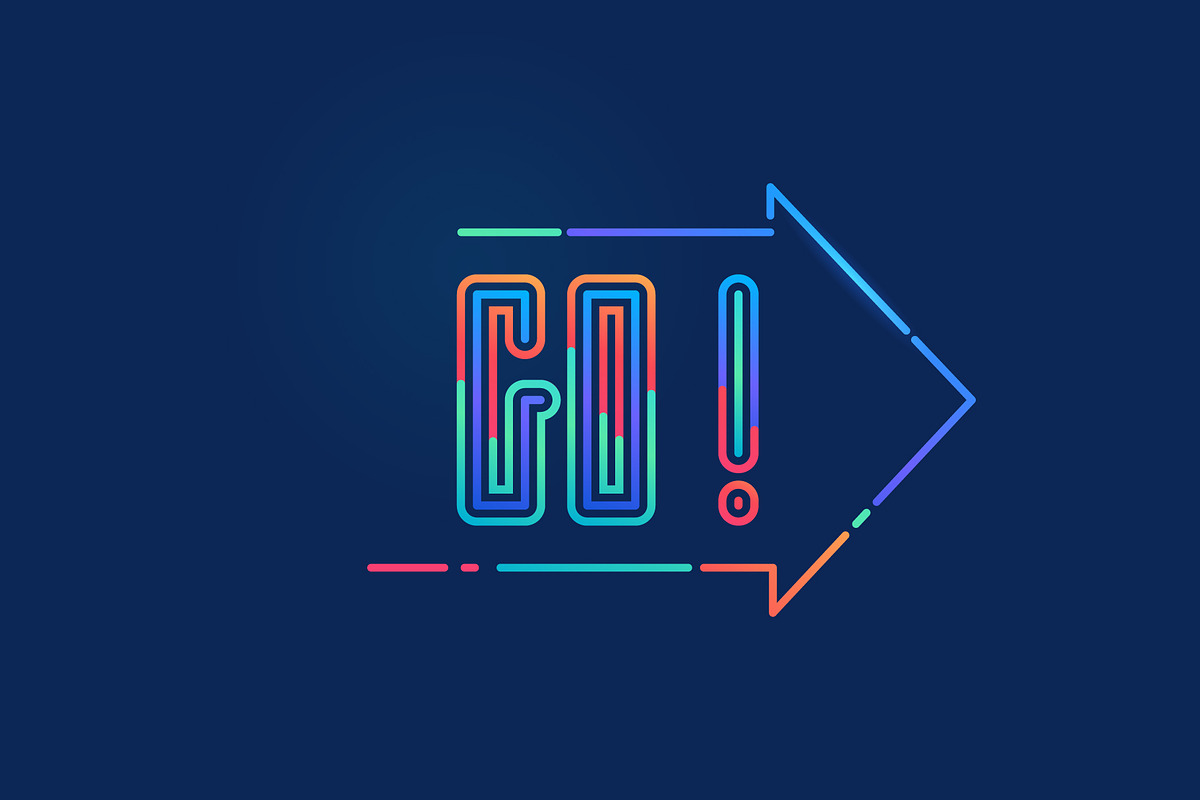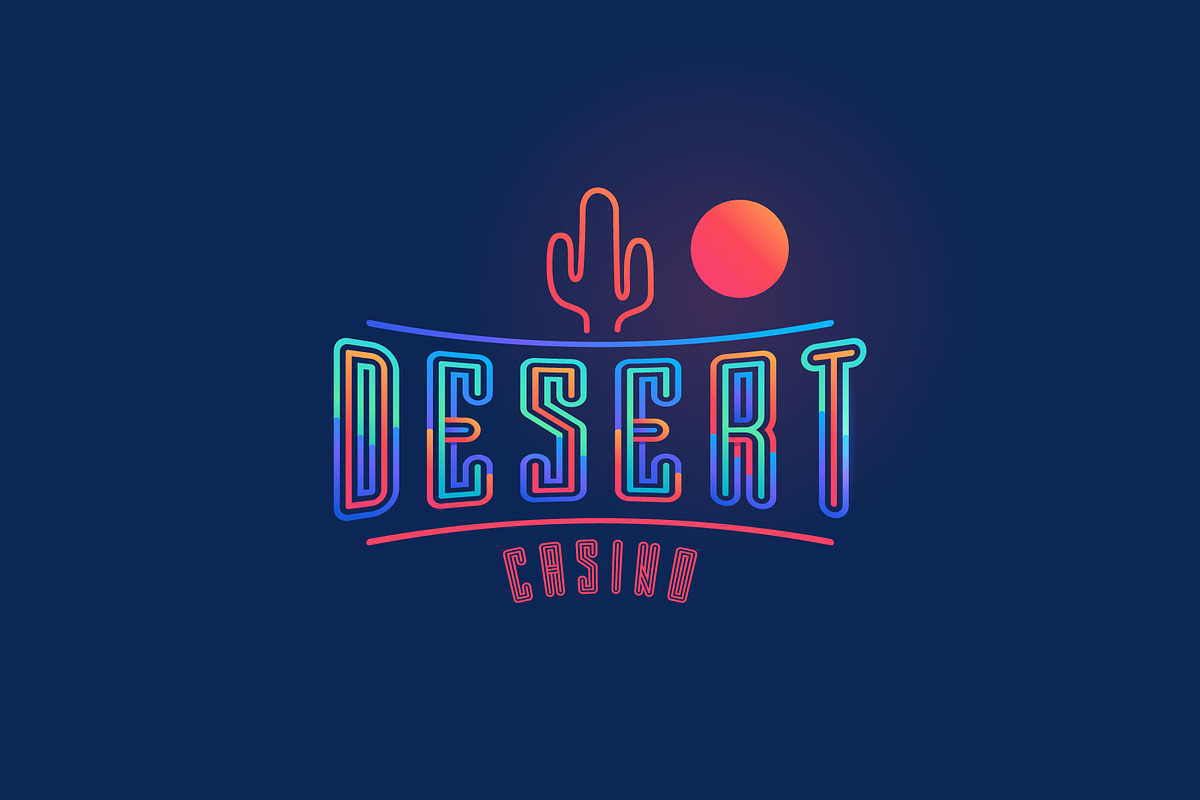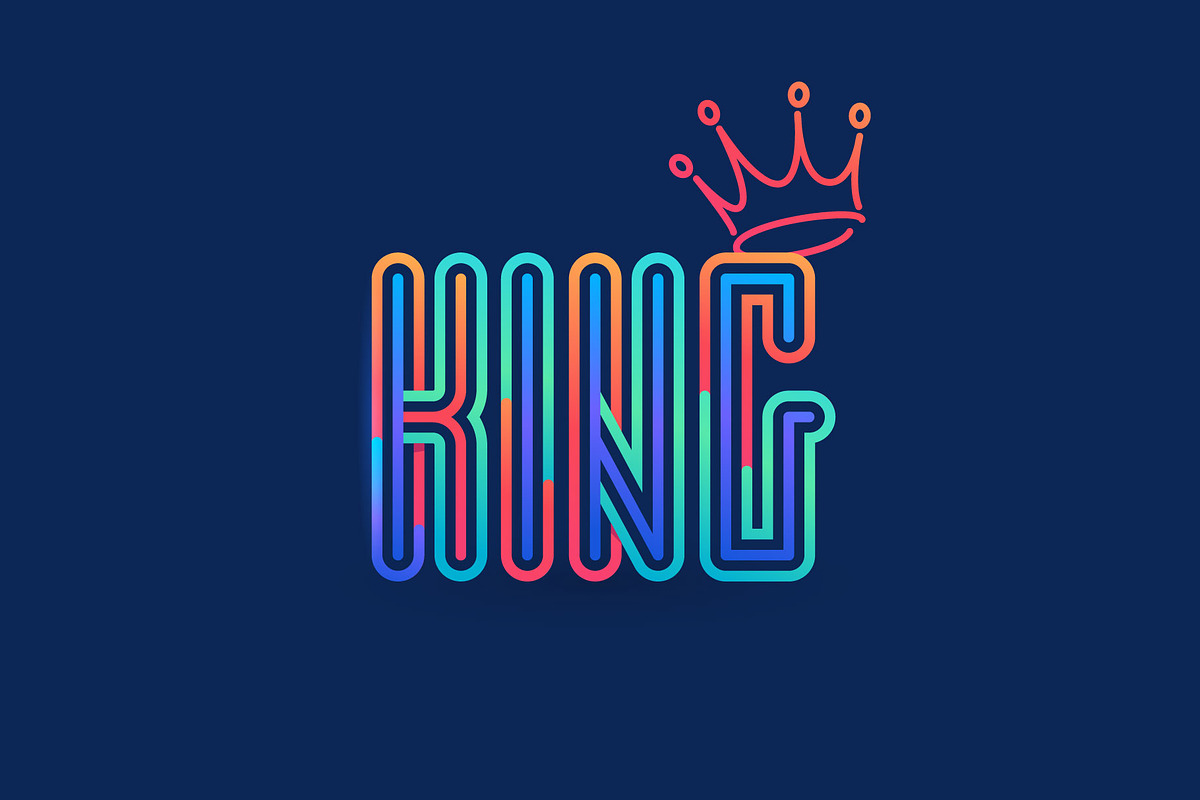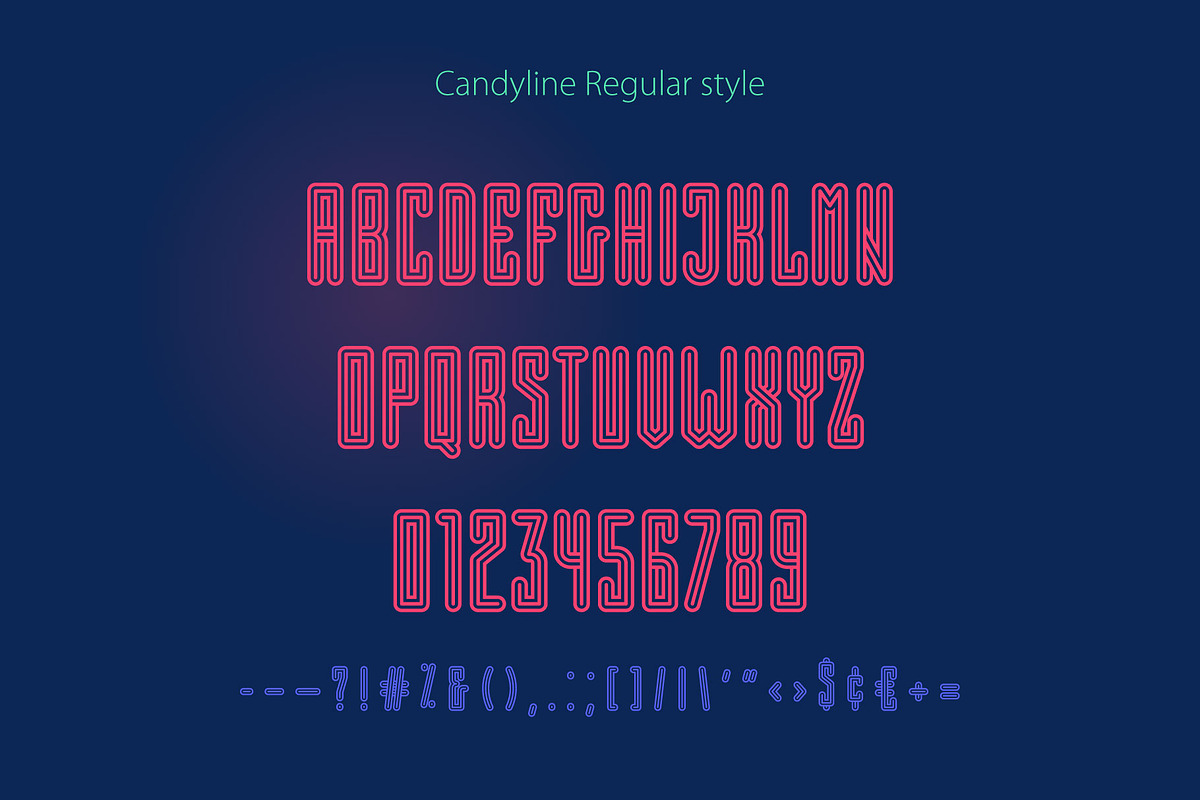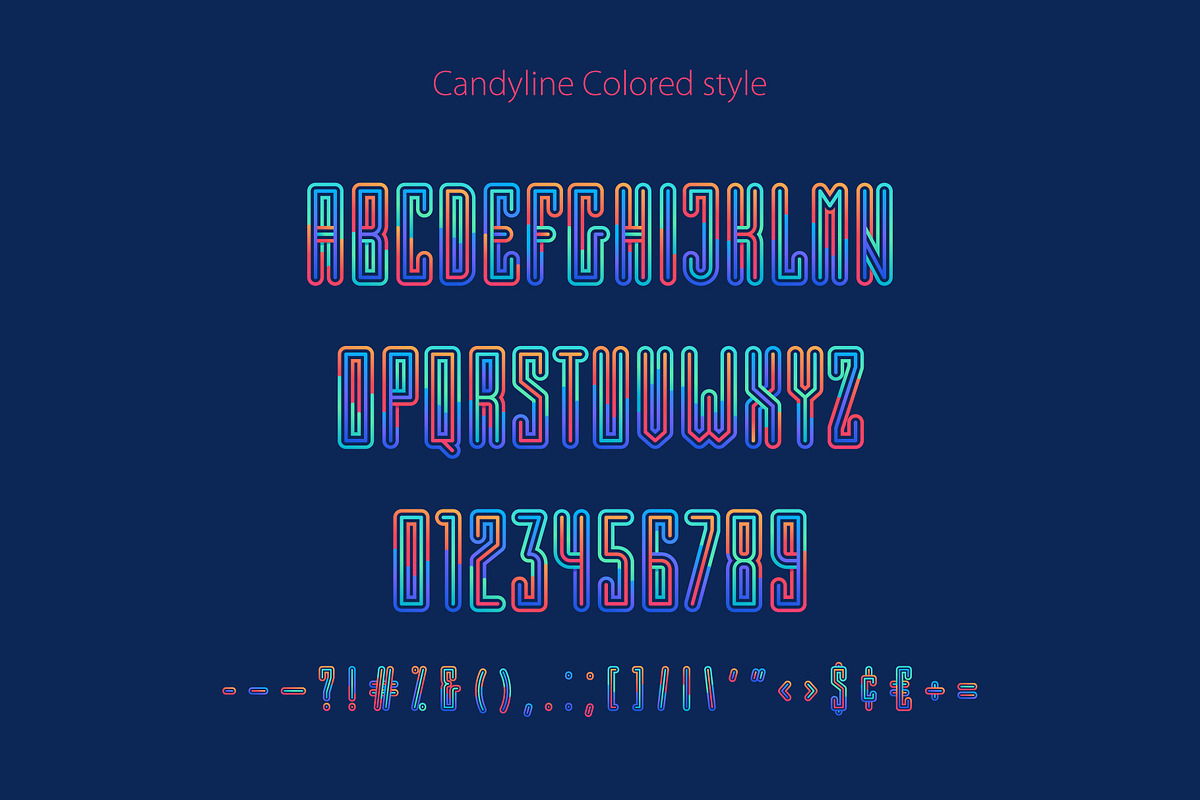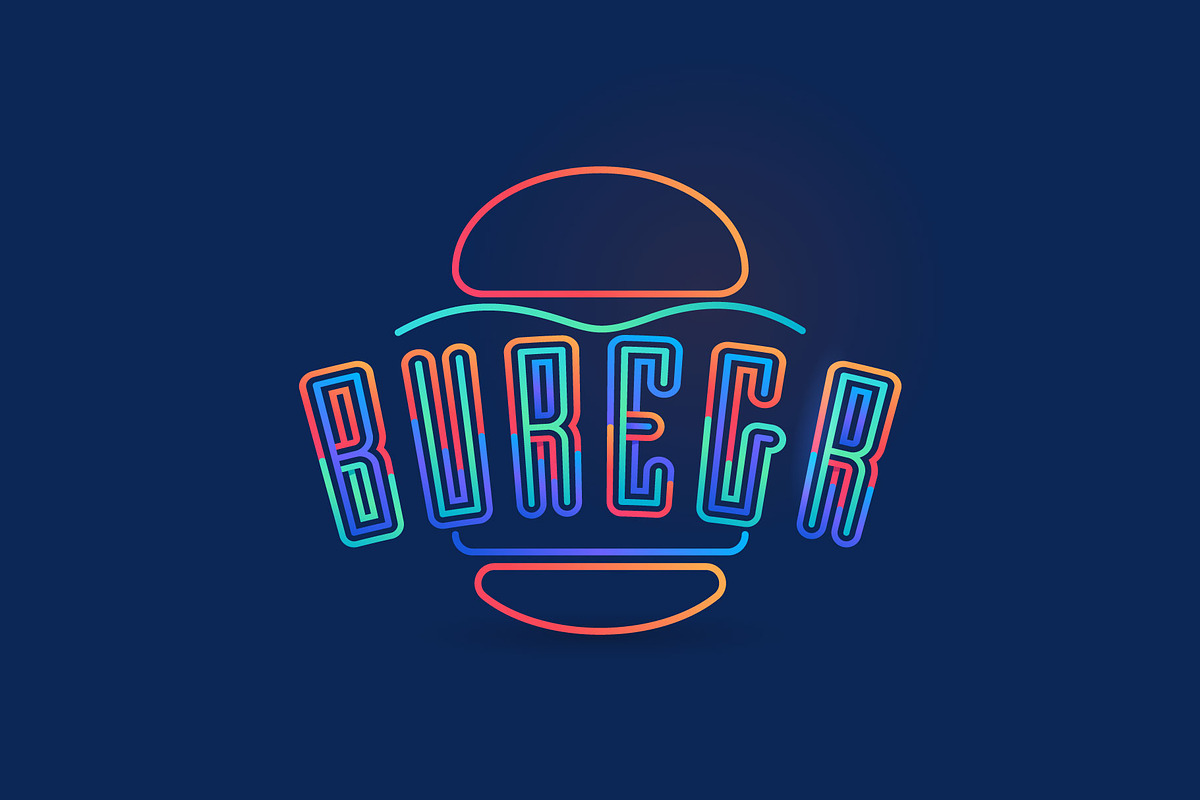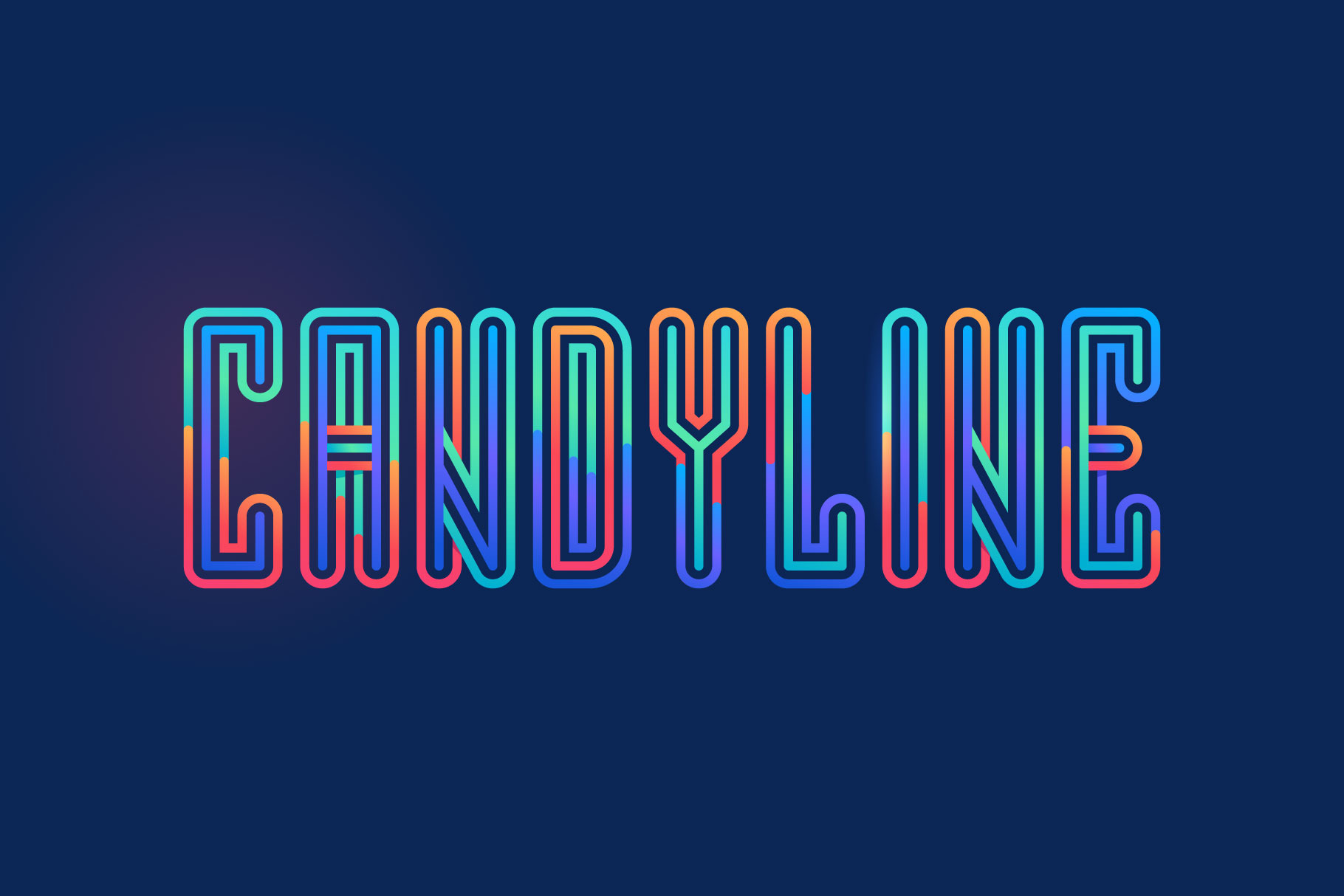
Candyline Colored display font
Candyline Colored display font is neon light alphabet. Colored tube font for line logo, science events posters, sport emblem, nightlife banner and futuristic identity.
- Colored and regular style
- Uppercase only (lowercase glyphs are same)
- Numbers and symbols